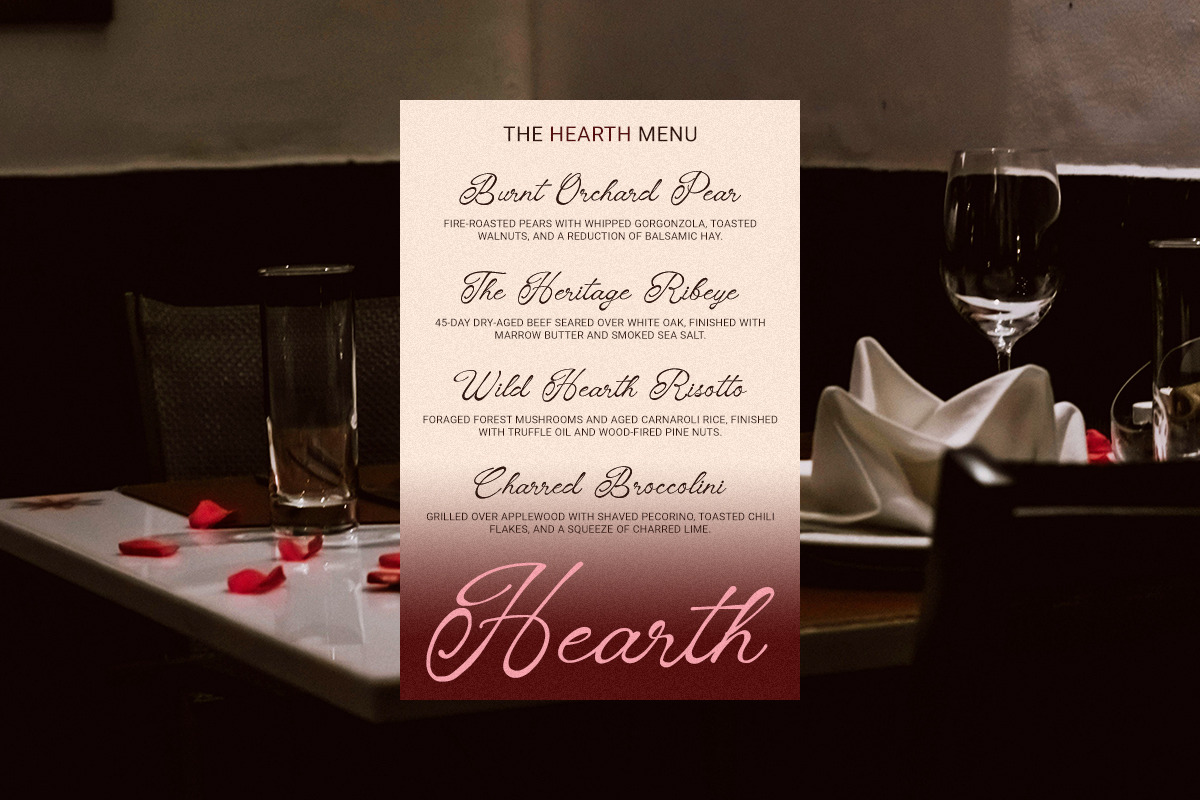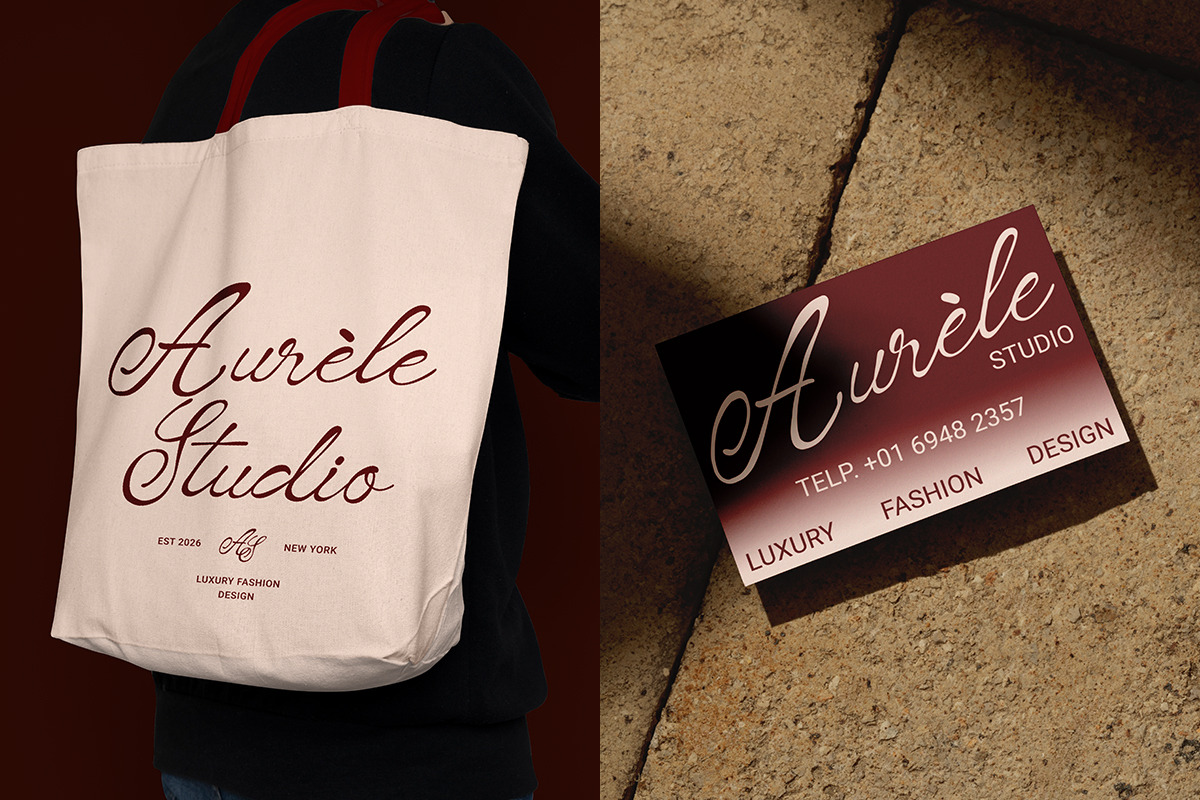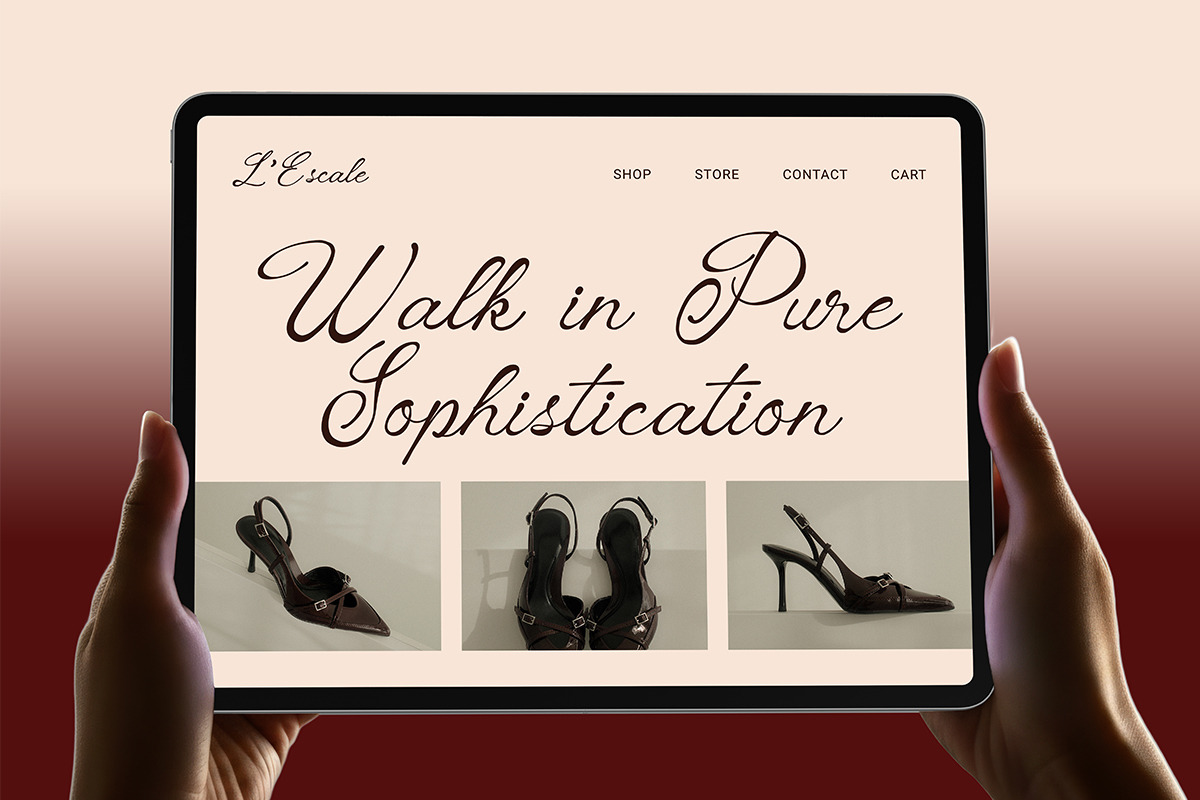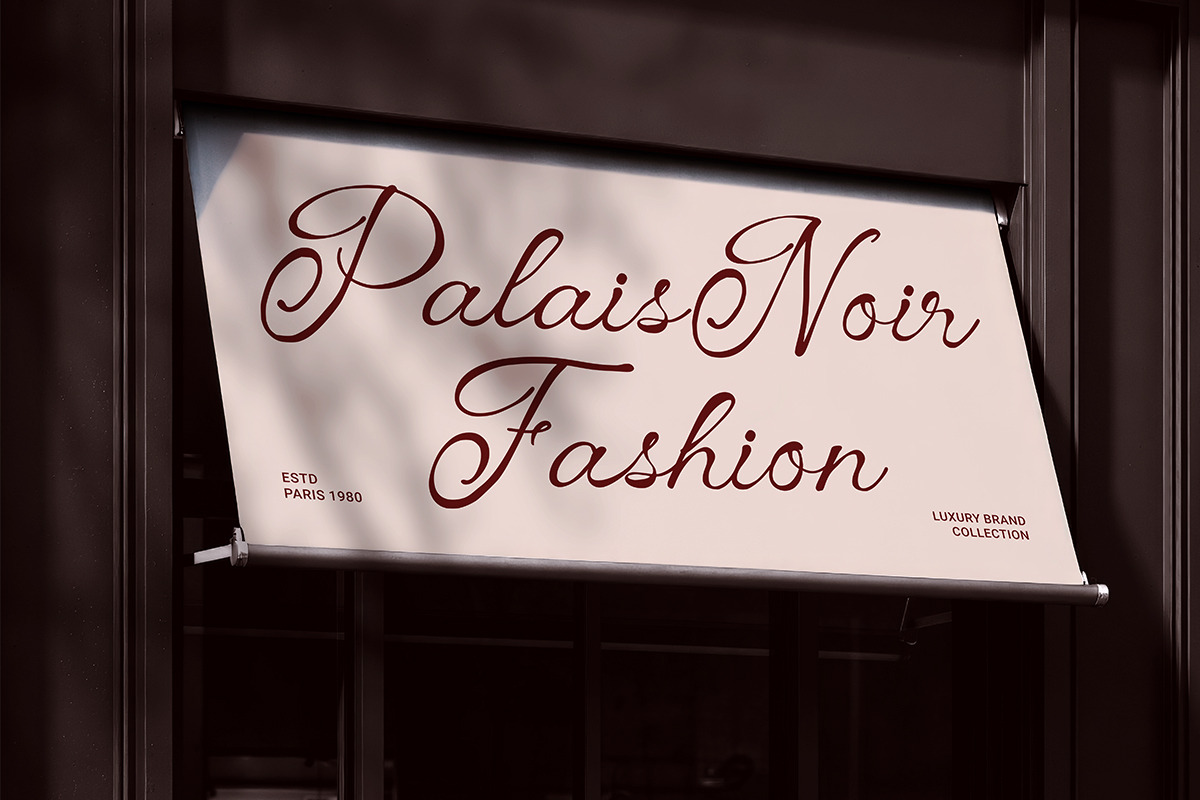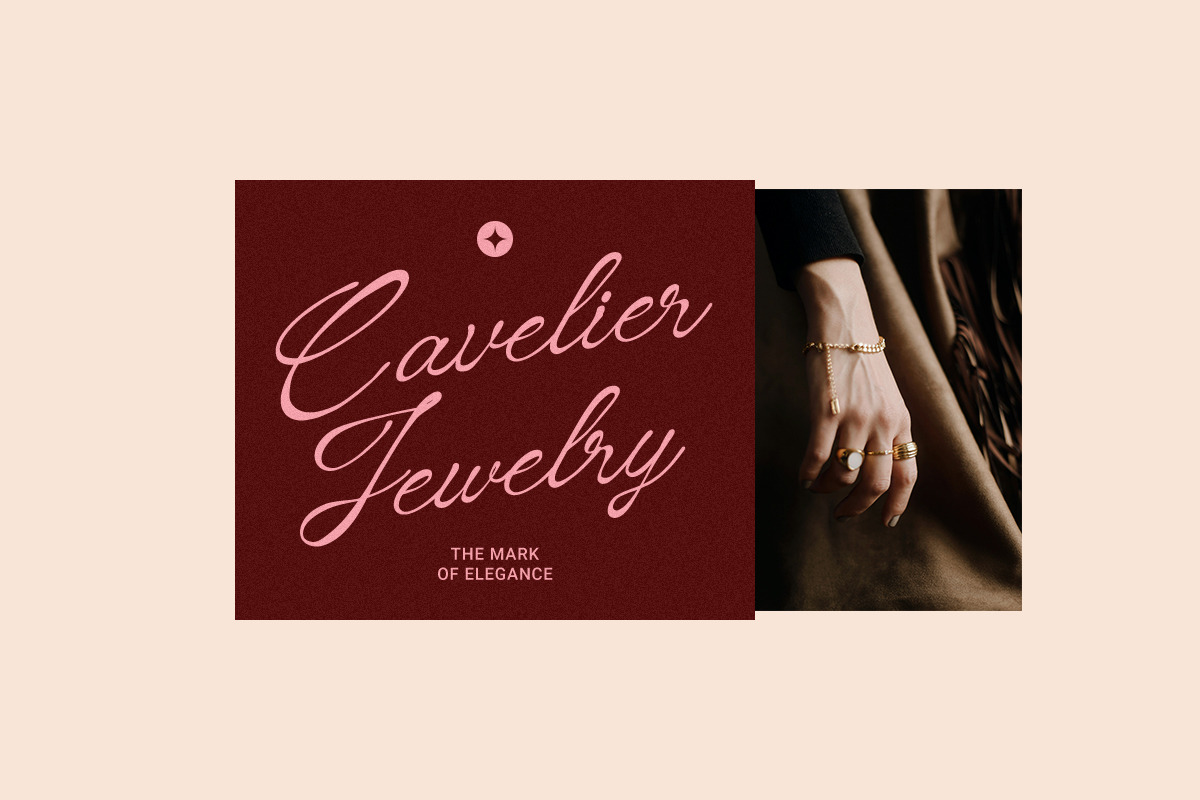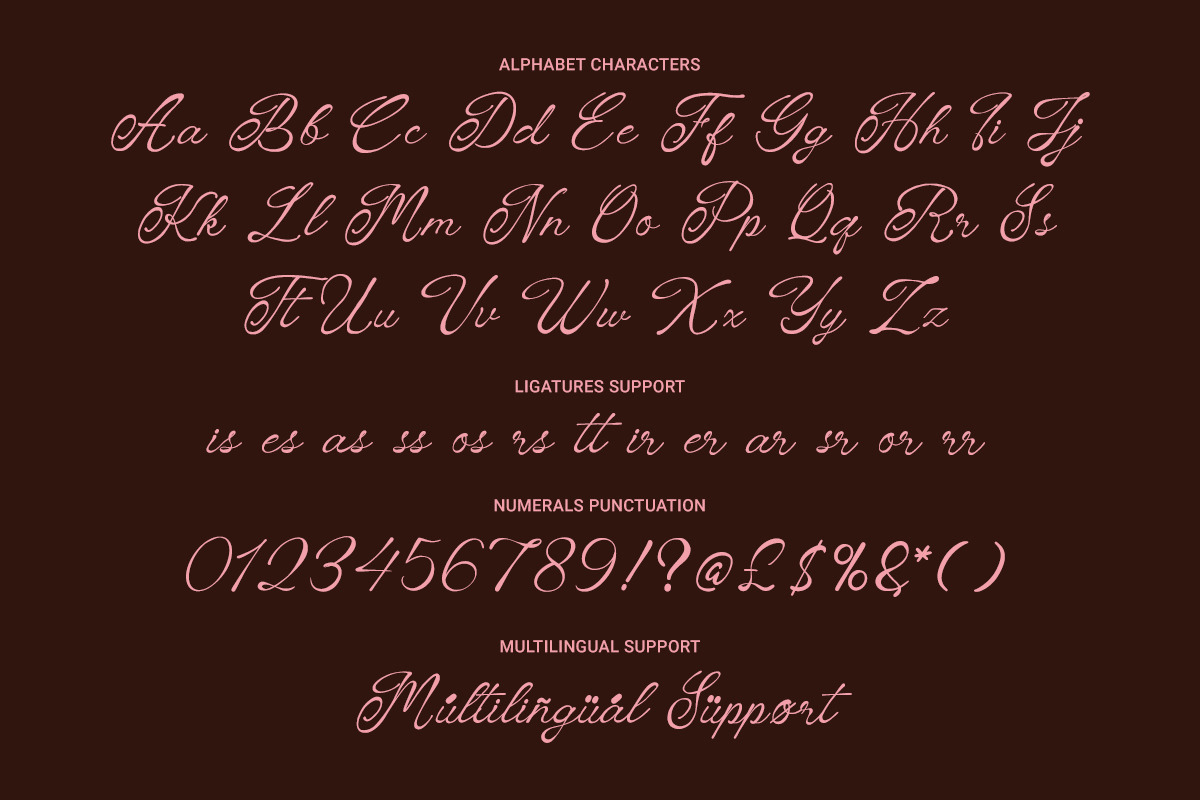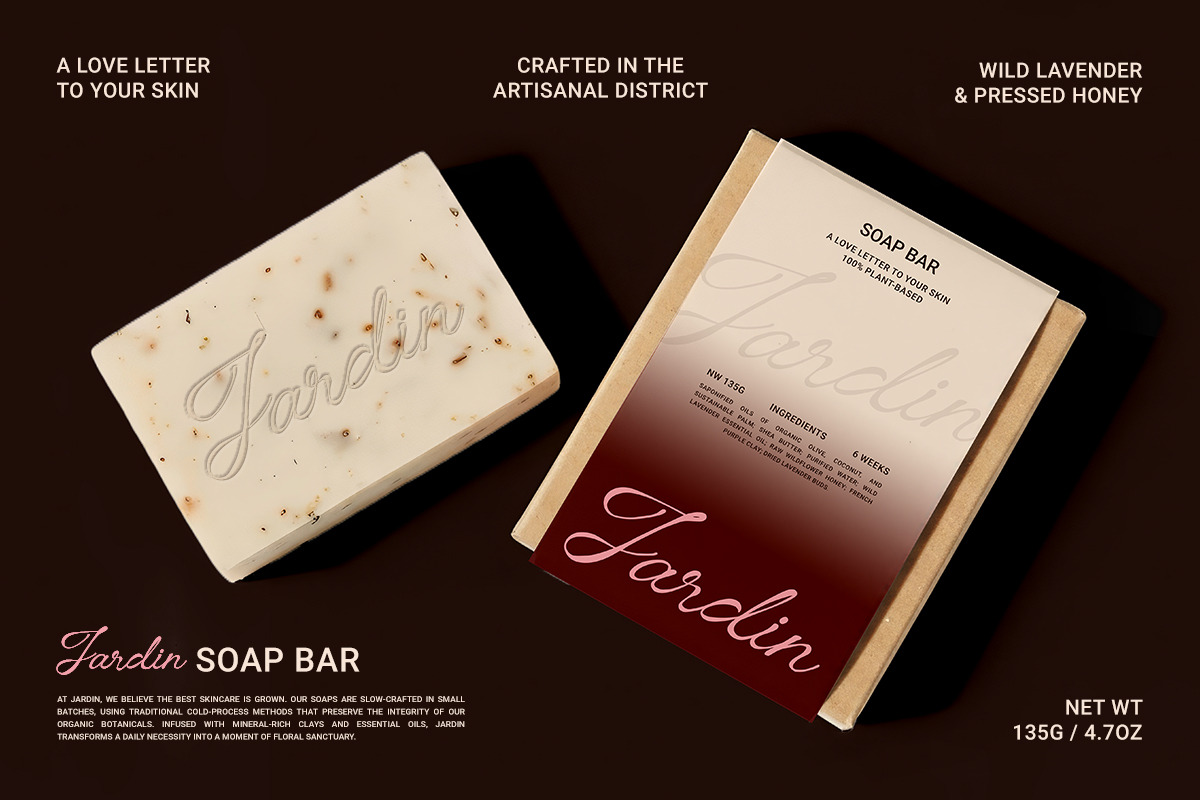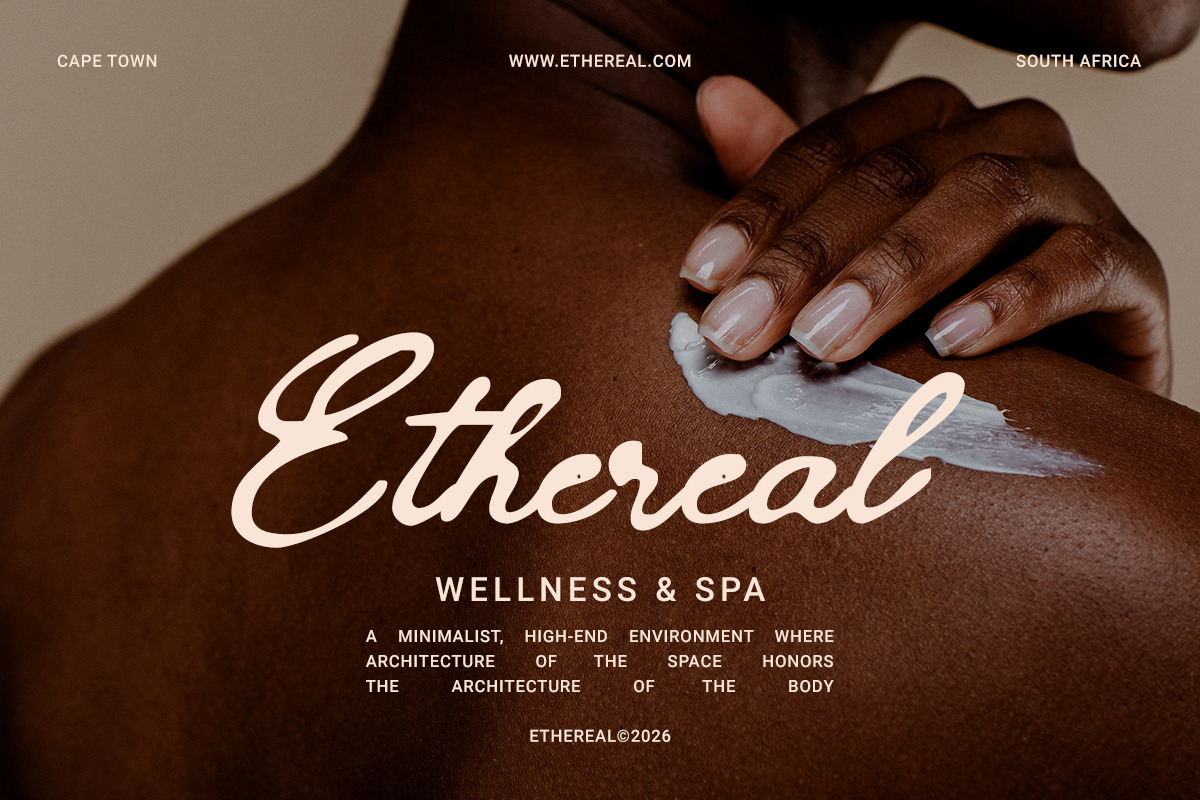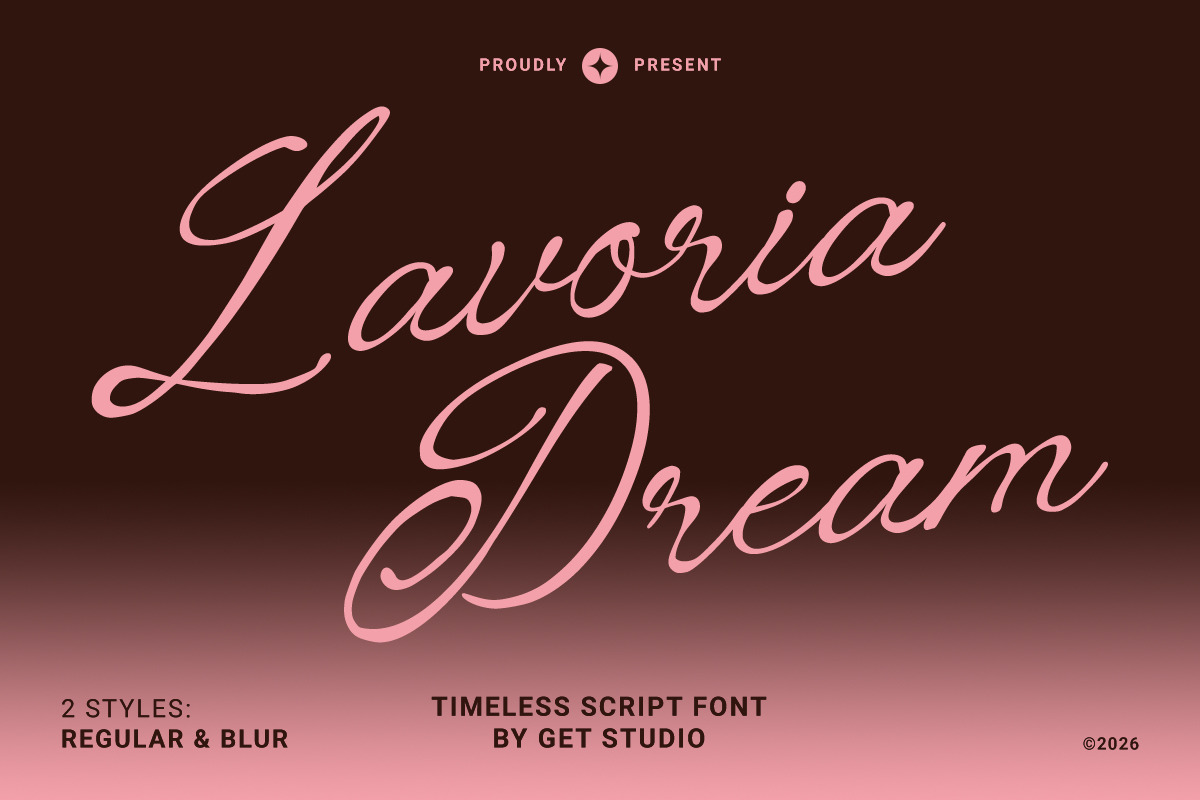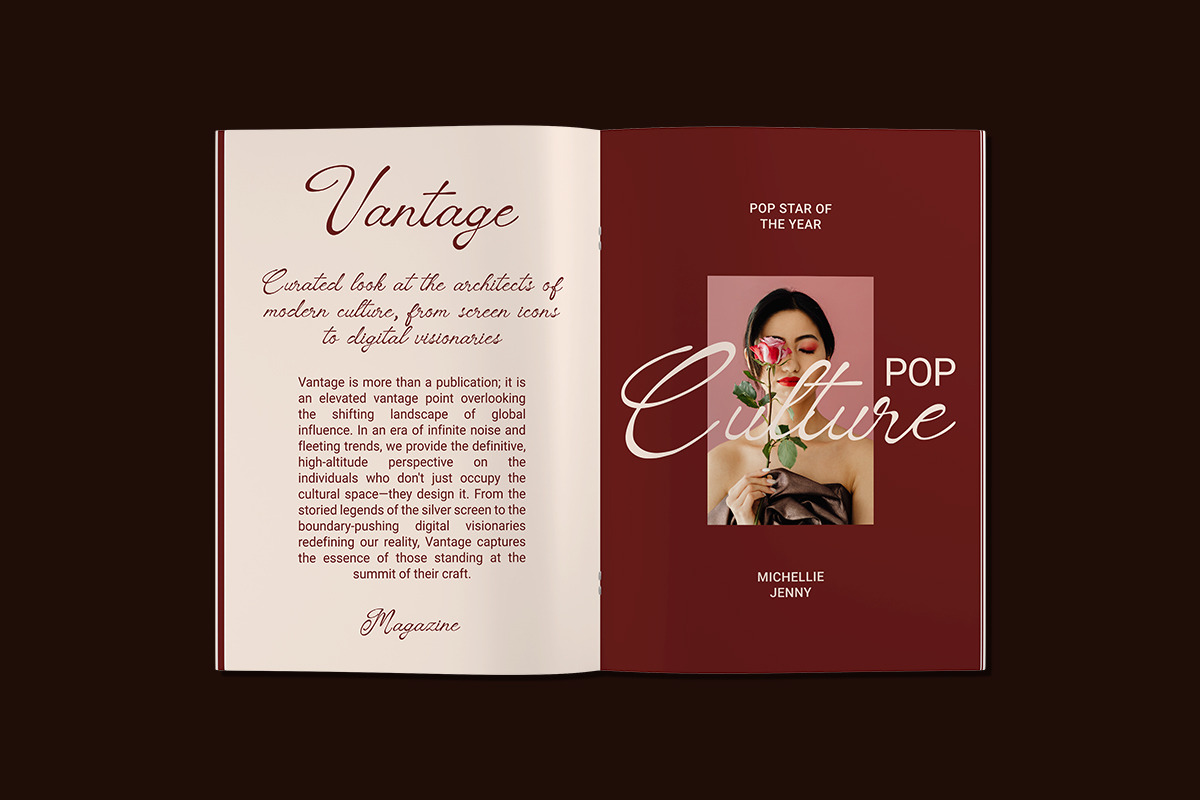
Lavoria Dream – Timeless Script Font
Lavoria Dream is a script font crafted with a classic touch and a smooth, natural flow. Each curve feels effortless, bringing a warm tone while keeping its elegance.
With flowing ligatures and well-balanced letterforms, it works beautifully for branding, weddings, editorials, and social media.
Simple, graceful, and easy to use—Lavoria Dream is a timeless script made to last.